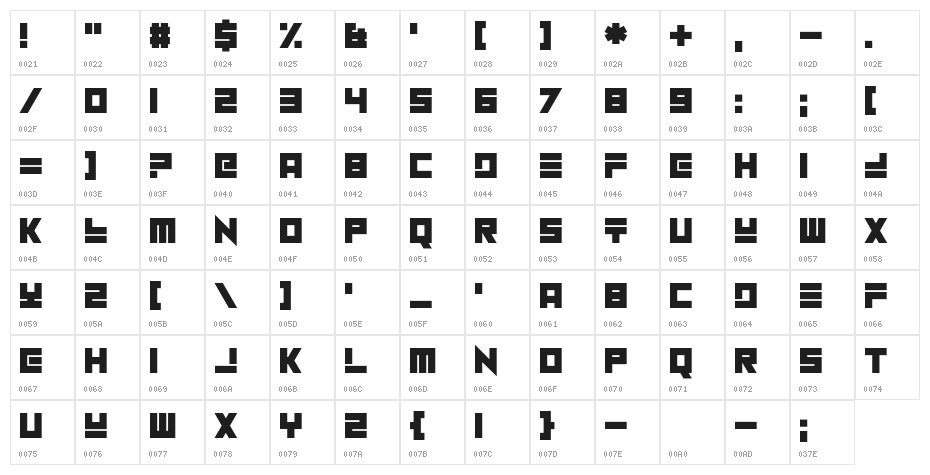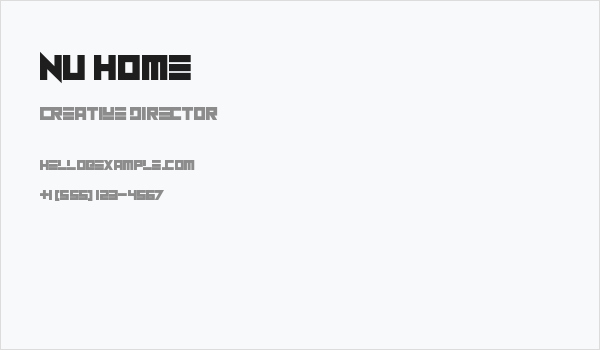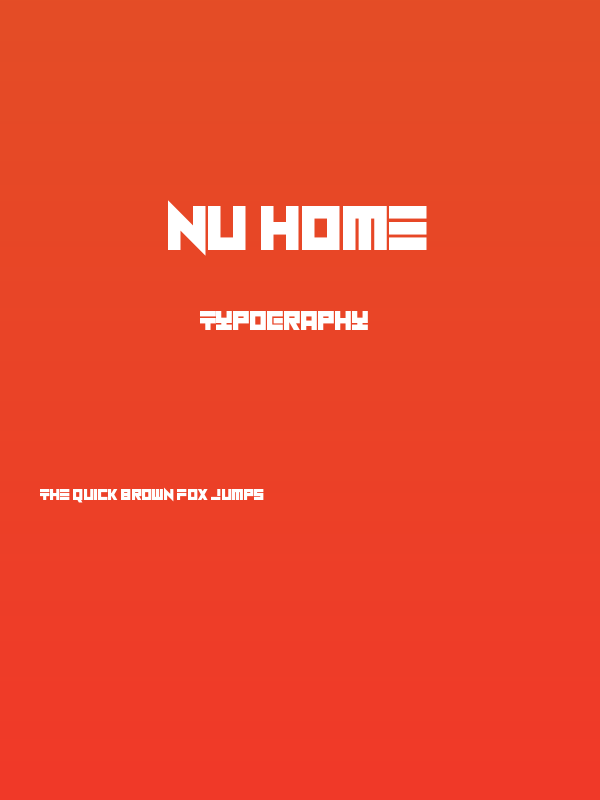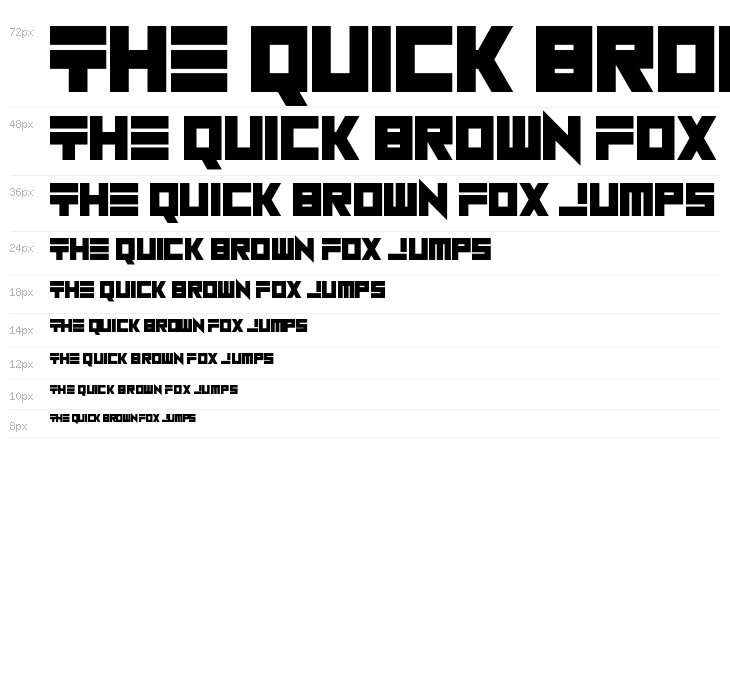
Nu Home Font
Nu Home Description
This font features a bold, geometric design with a futuristic and industrial aesthetic. The characters are constructed with sharp angles and straight lines, creating a blocky and robust appearance. The uppercase letters are particularly striking, with a uniform height and width that emphasizes their solid structure. The lowercase letters maintain the same boldness, ensuring consistency across the typeface. Numbers and special characters are designed to match the overall style, contributing to a cohesive look. This font's unique style makes it stand out, ideal for projects that require a modern and edgy feel.
Proposed ProjectsIdeal for branding, posters, video game graphics, and sci-fi themed projects.